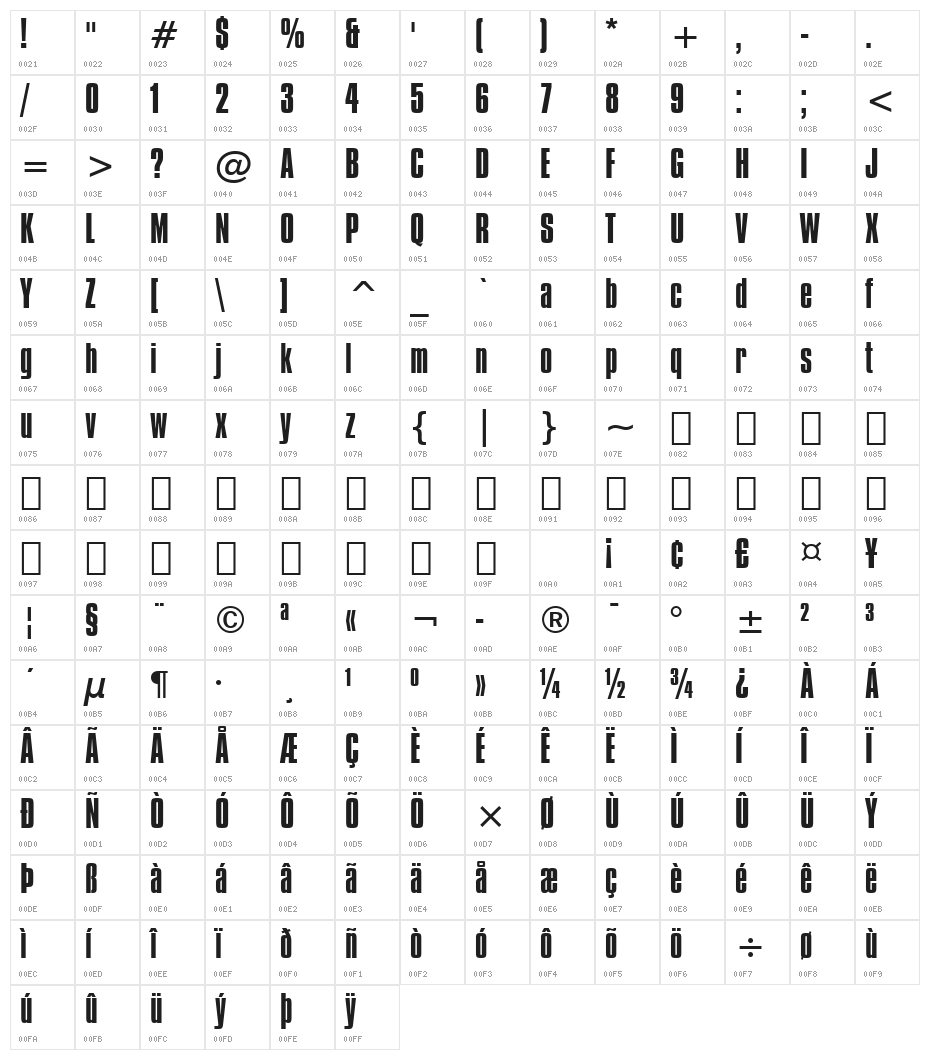
Compacta BT Font
Compacta BT Description
This font features a bold and impactful design, characterized by its tall and narrow letterforms. The uppercase and lowercase letters maintain a consistent width, creating a uniform appearance. The numbers and special characters follow the same condensed style, ensuring a cohesive look across all text elements. The font's strong vertical emphasis and minimal spacing between characters give it a powerful presence, making it ideal for attention-grabbing headlines and titles. Its clean lines and lack of decorative elements contribute to a modern and professional aesthetic.
| Proposed Projects | Ideal for headlines, posters, advertising, and any project requiring a bold, impactful typeface. |